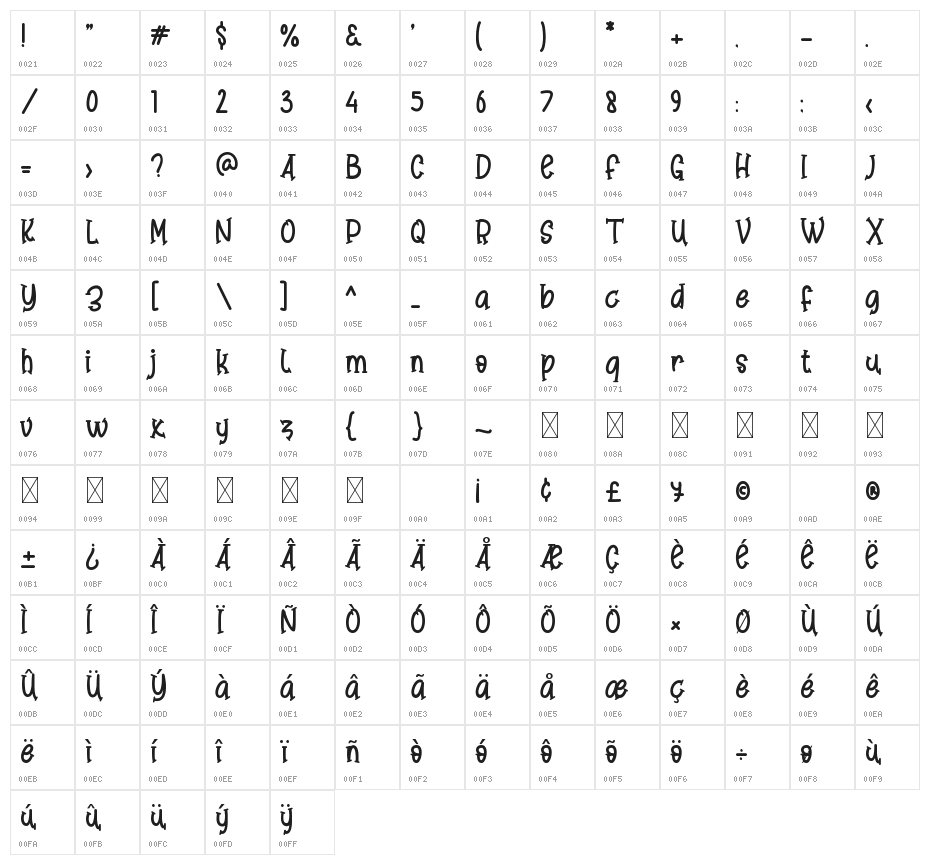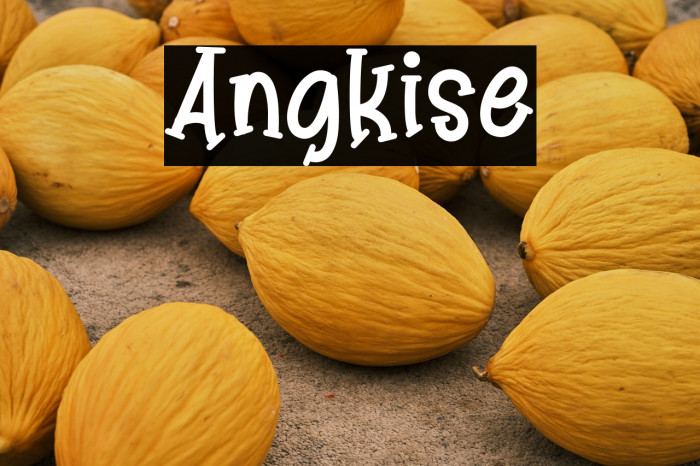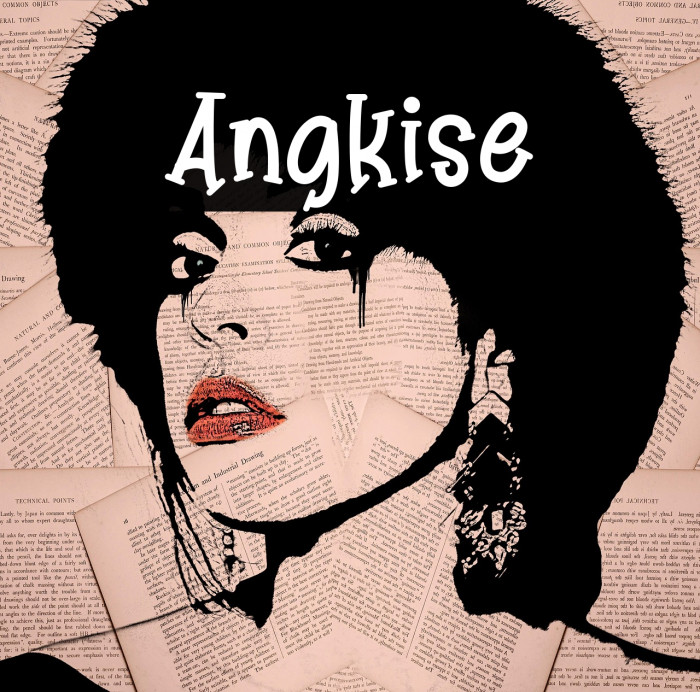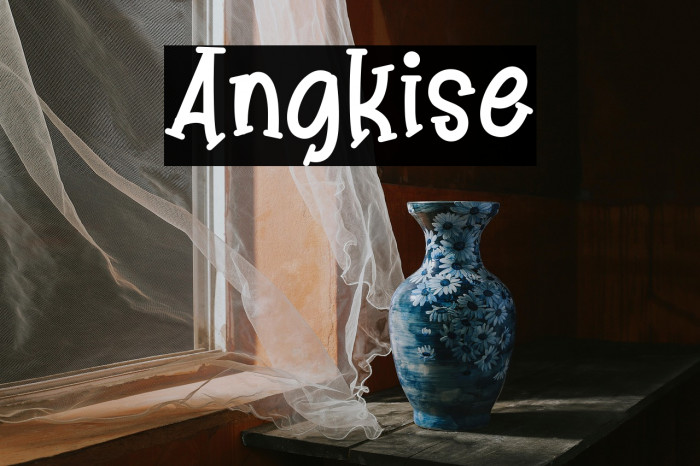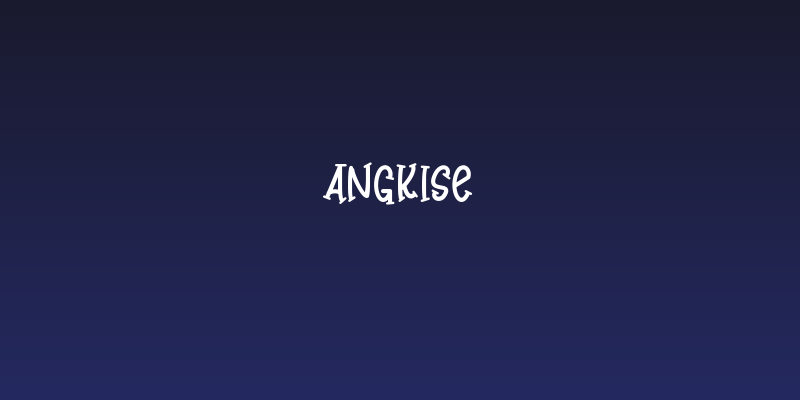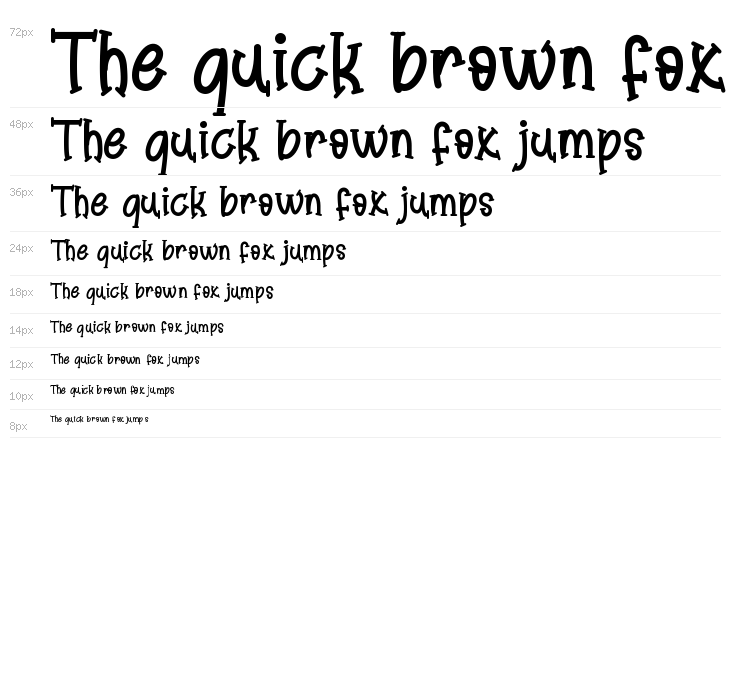
Angkise Font
Angkise Description
This font features a playful and whimsical style with a hand-drawn appearance. The characters have a slightly irregular shape, giving them a casual and friendly feel. The strokes are moderately thick, providing good readability while maintaining a fun and informal look. The uppercase and lowercase letters are distinct, with unique flourishes and curves that add personality. The numbers and special characters are consistent with the overall style, ensuring a cohesive look across all text. This font is ideal for projects that require a touch of creativity and informality.
| Proposed Projects | Ideal for children's books, greeting cards, playful branding, and creative posters. |